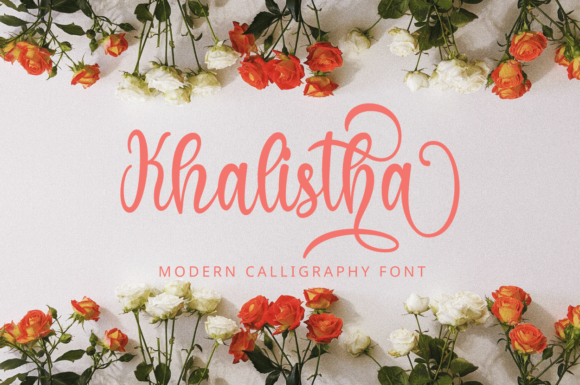
Khalistha Font
Dive into the world of Khalistha Font, a captivating script typeface that will ignite your creativity and leave a lasting impression on your designs. Experience the allure of its enchanting characters, dancing gracefully along the baseline, adding a touch of elegance and romance to every project you undertake.
With Khalistha Font, you'll discover a treasure trove of possibilities to elevate your designs, from mesmerizing logos that command attention to stunning invitations that exude sophistication. Unleash your imagination and let the font's inherent charm elevate your work to new heights.
Feel the rush of inspiration as you explore the endless applications of Khalistha Font. Craft eye-catching T-shirt designs that speak volumes, leaving a lasting impression on those who encounter them. Design posters that captivate and engage, drawing viewers into your message with its enchanting allure.
Beyond its visual appeal, Khalistha Font is a testament to functionality. Effortlessly access an array of glyphs and ligatures, seamlessly integrated into the font's design. Experience the ease of use as you create harmonious and cohesive designs, without sacrificing creativity.
Khalistha Font, a creation of Soegih Artwork, awaits your touch to bring forth its true potential. Let your imagination soar as you transform your designs into masterpieces, captivating audiences with their beauty and elegance. Embrace the power of Khalistha Font and witness the transformation of your creative endeavors.